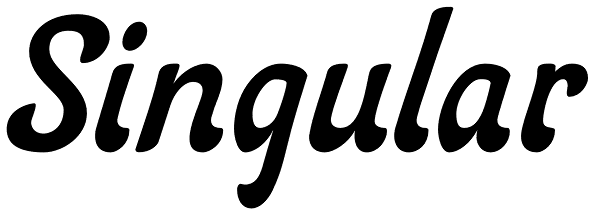
Singular
A semi-heavy face slightly condensed, inspired by the Germanic & European type fonts. Applications include captions, packaging, invitations, cards, posters, ads, book jackets, and manuals.